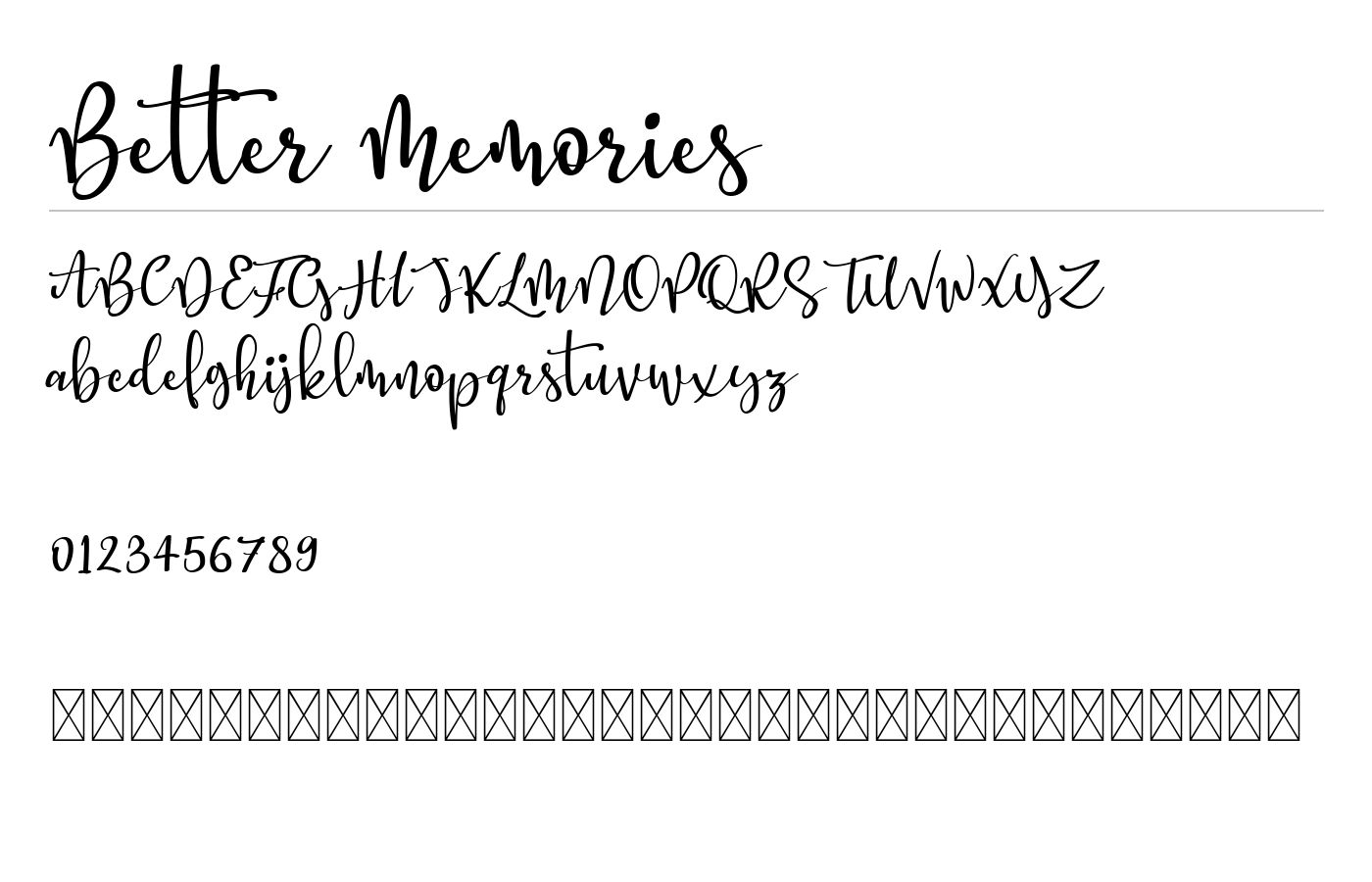
Better Memories Font is a charming script typeface with a hand-drawn, casual feel that features delicate strokes and playful letterforms. Its elegant and lively style makes it perfect for creative projects like invitations, branding, and social media designs that seek a warm and personal touch. This font works especially well in headlines and logos where a friendly yet stylish impression is desired.
Better Memories Font
About Better Memories Font
| Font family | Better Memories Font |
| Designer | Ardian Nuvianto. 2019 |